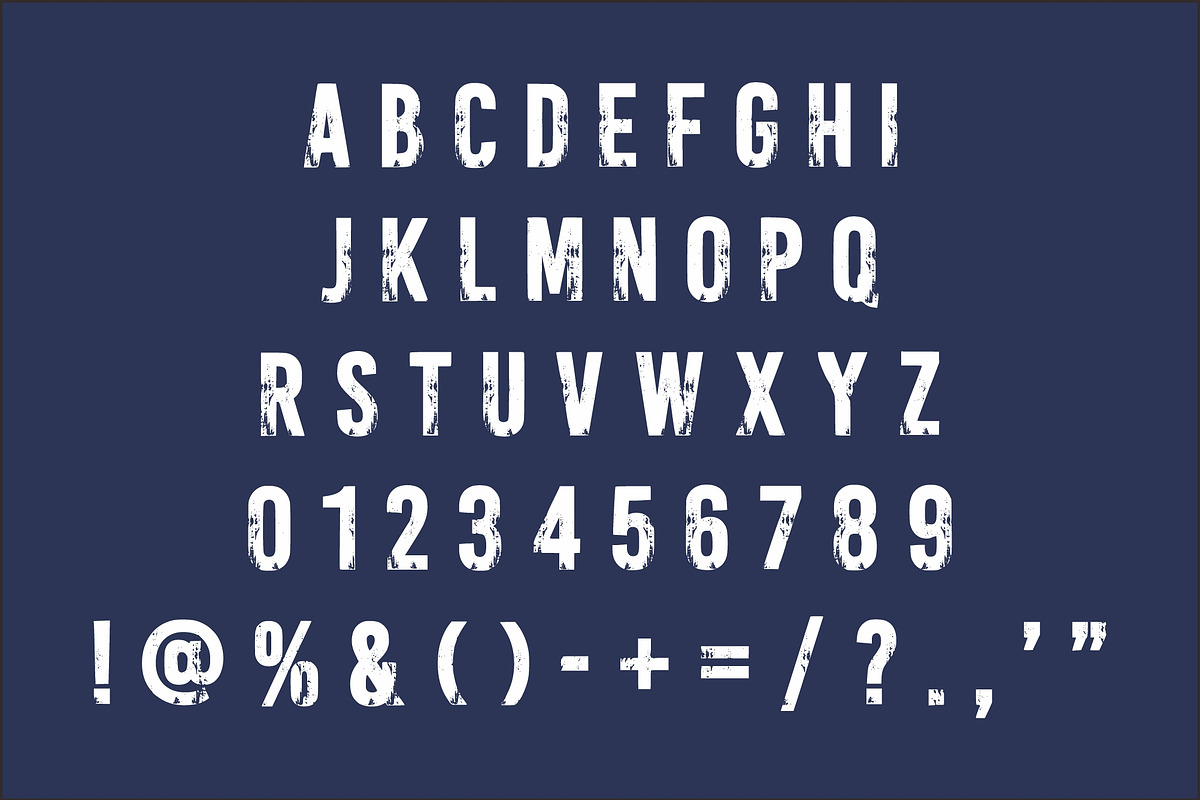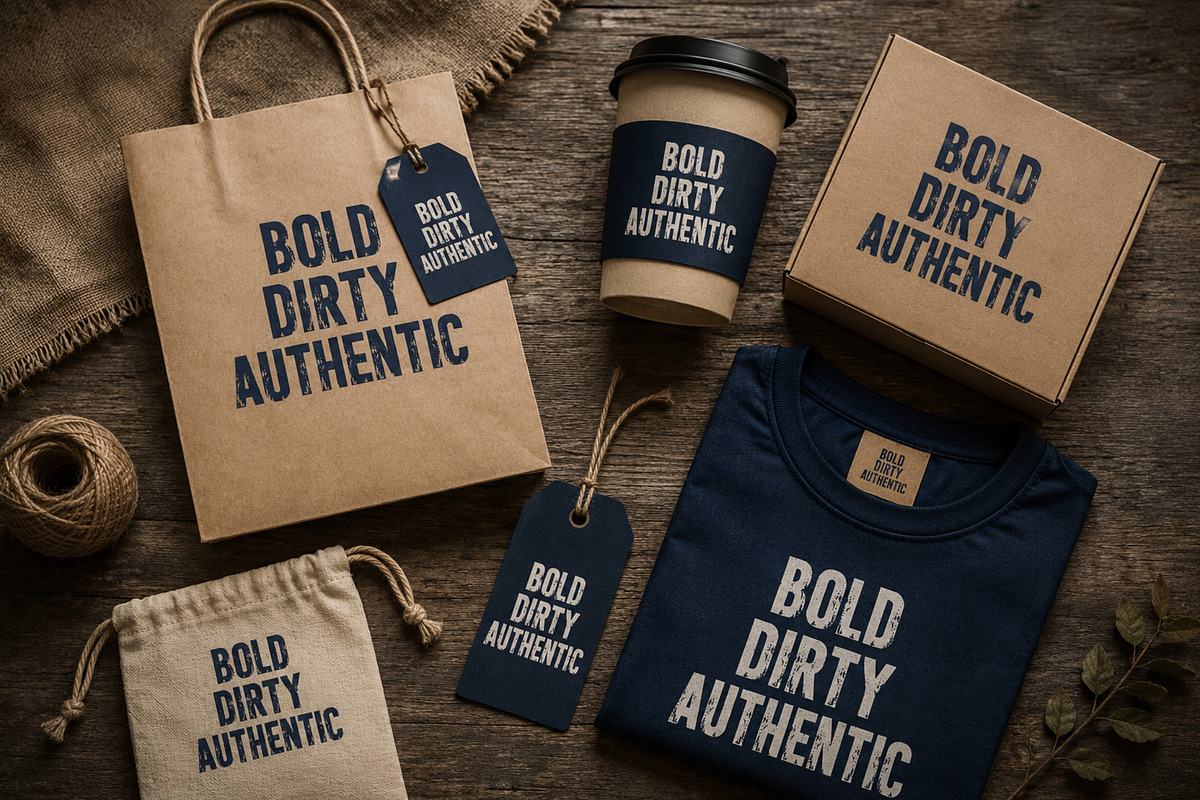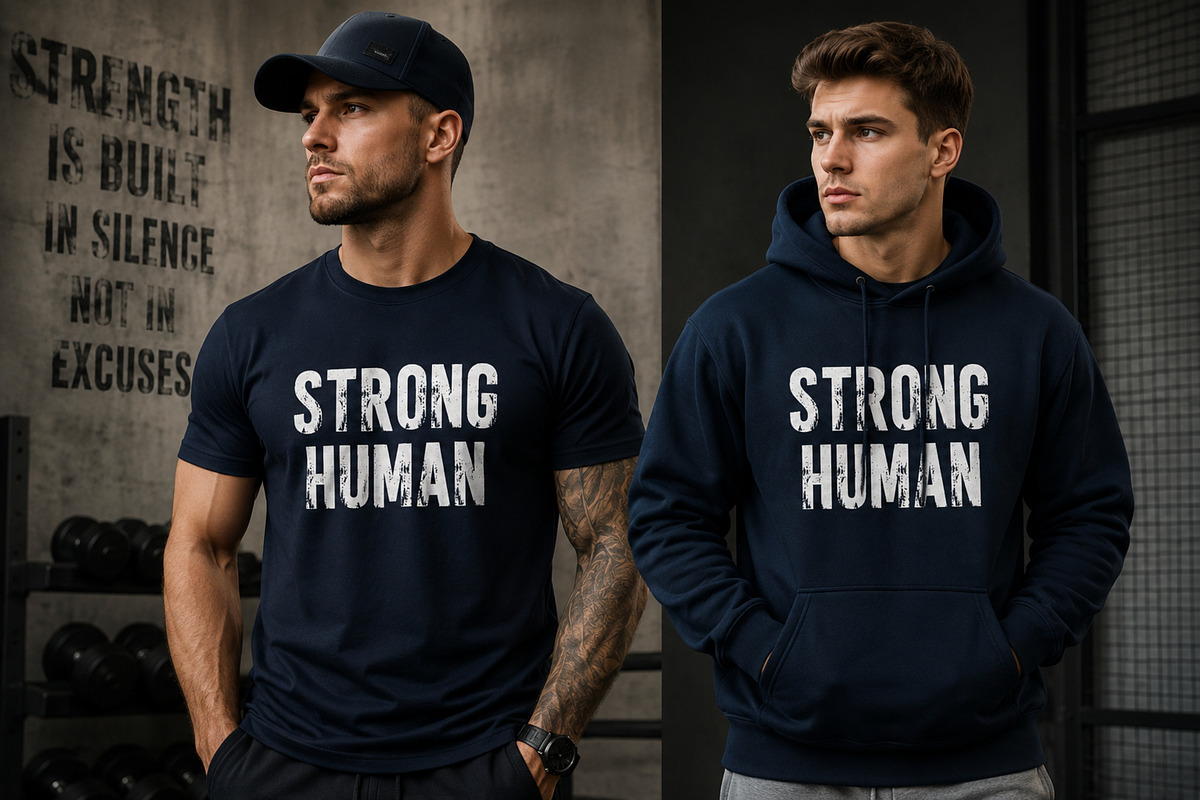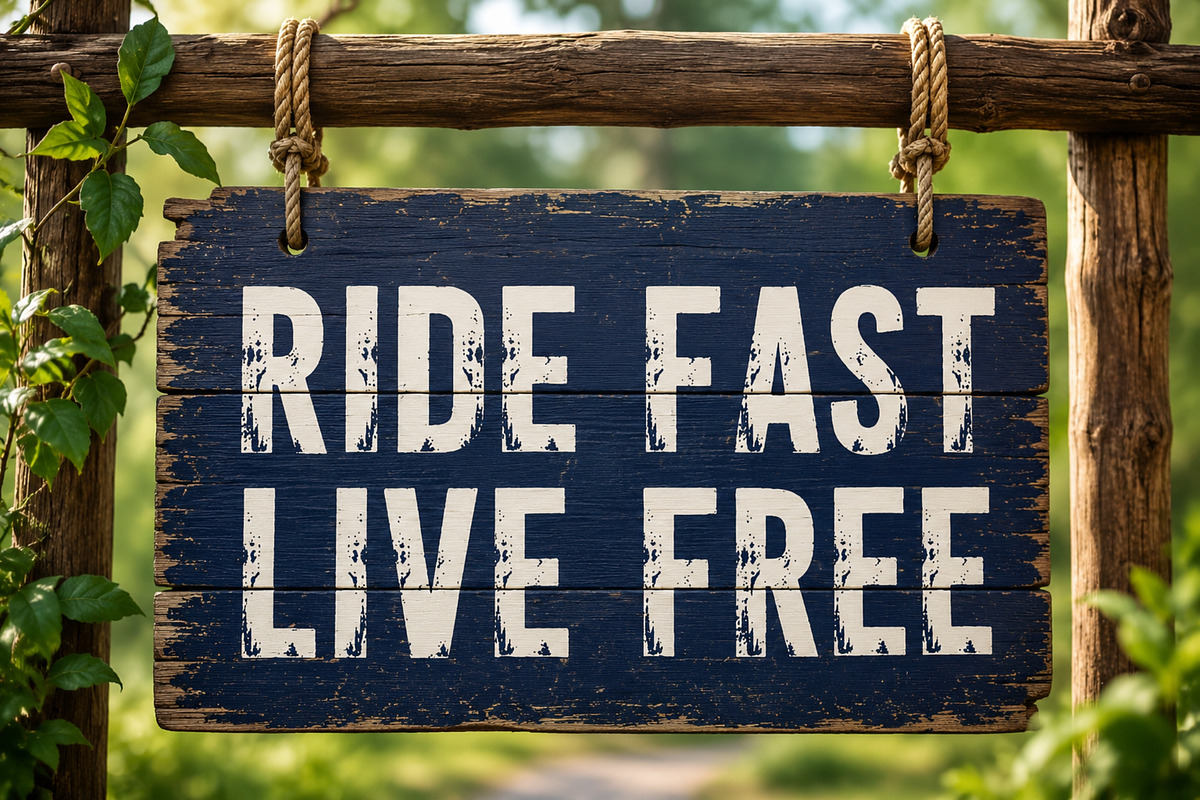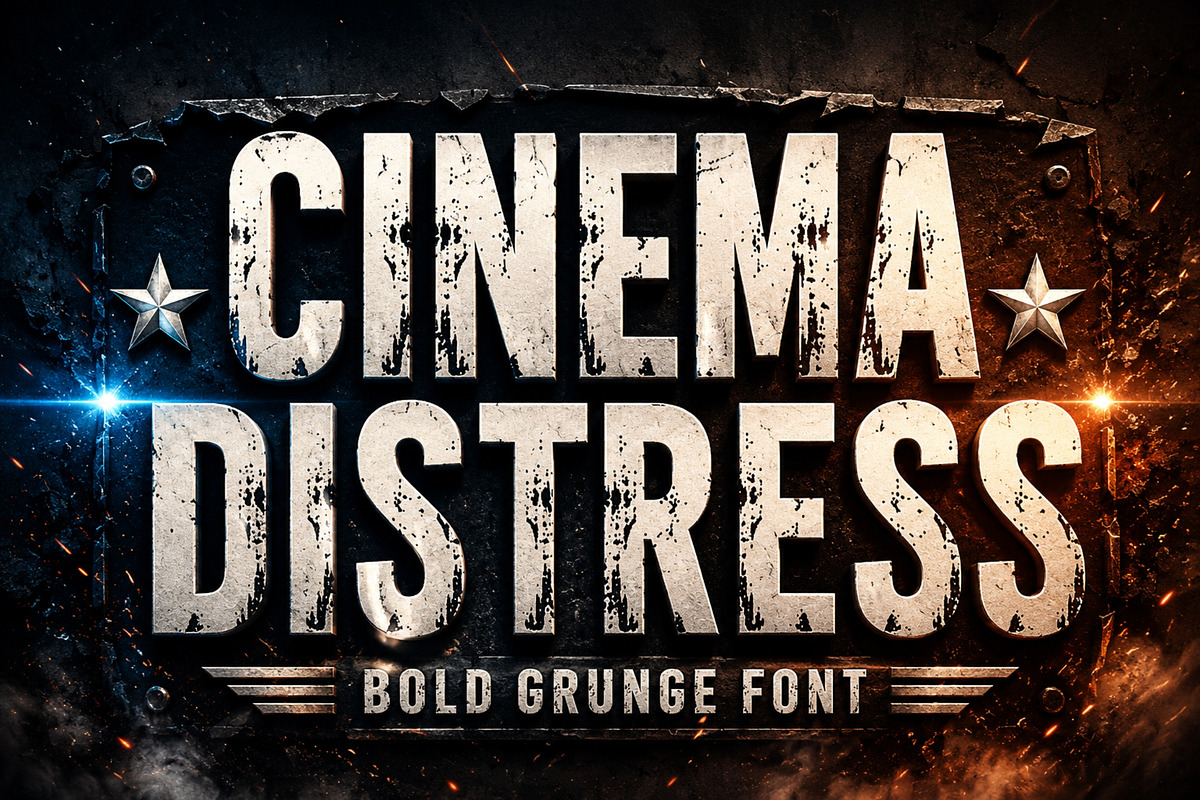
Cinema Distress – Bold Grunge
Cinema Distress is a powerful bold display font designed with a rough, worn, and distressed appearance. Its strong typography combines grunge textures, industrial character, and cinematic styling to create an intense visual impact.
Perfect for designs that need a raw, rebellious, and rugged atmosphere. Ideal for movie posters, action branding, music artwork, sports graphics, apparel, badges, logos, album covers, and promotional designs.
Bold grunge display style
Distressed and weathered texture
Strong condensed letterforms
Industrial & rugged appearance
Cinematic visual character
High-impact headline typography
Uppercase characters
Multilingual support (if included)
Movie & film posters
Action branding
T-shirt designs
Streetwear graphics
Music & album artwork
Rock & metal designs
Sports branding
Event posters
Badges & emblems
Logos
Product packaging
Advertising
Gaming graphics
Social media artwork